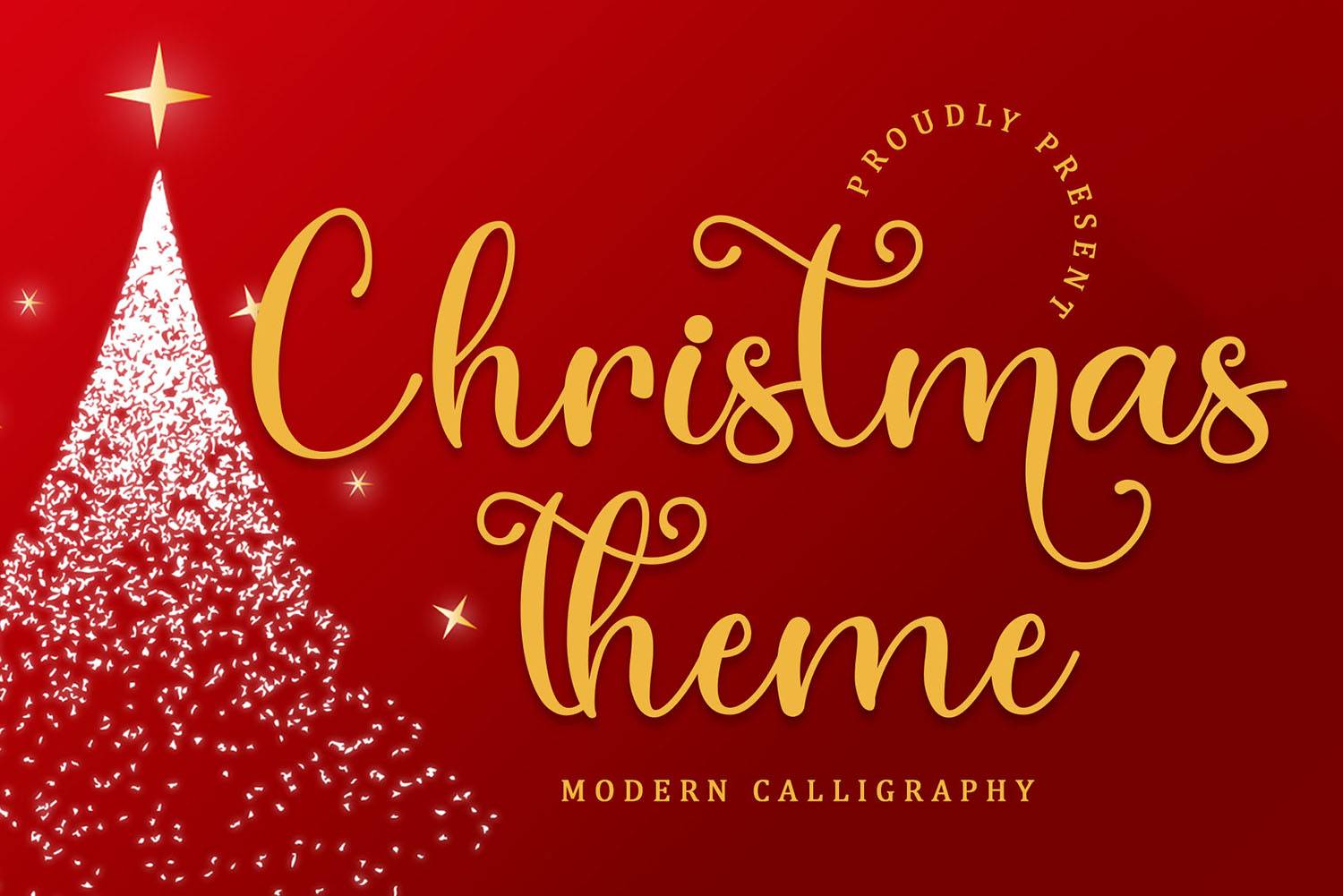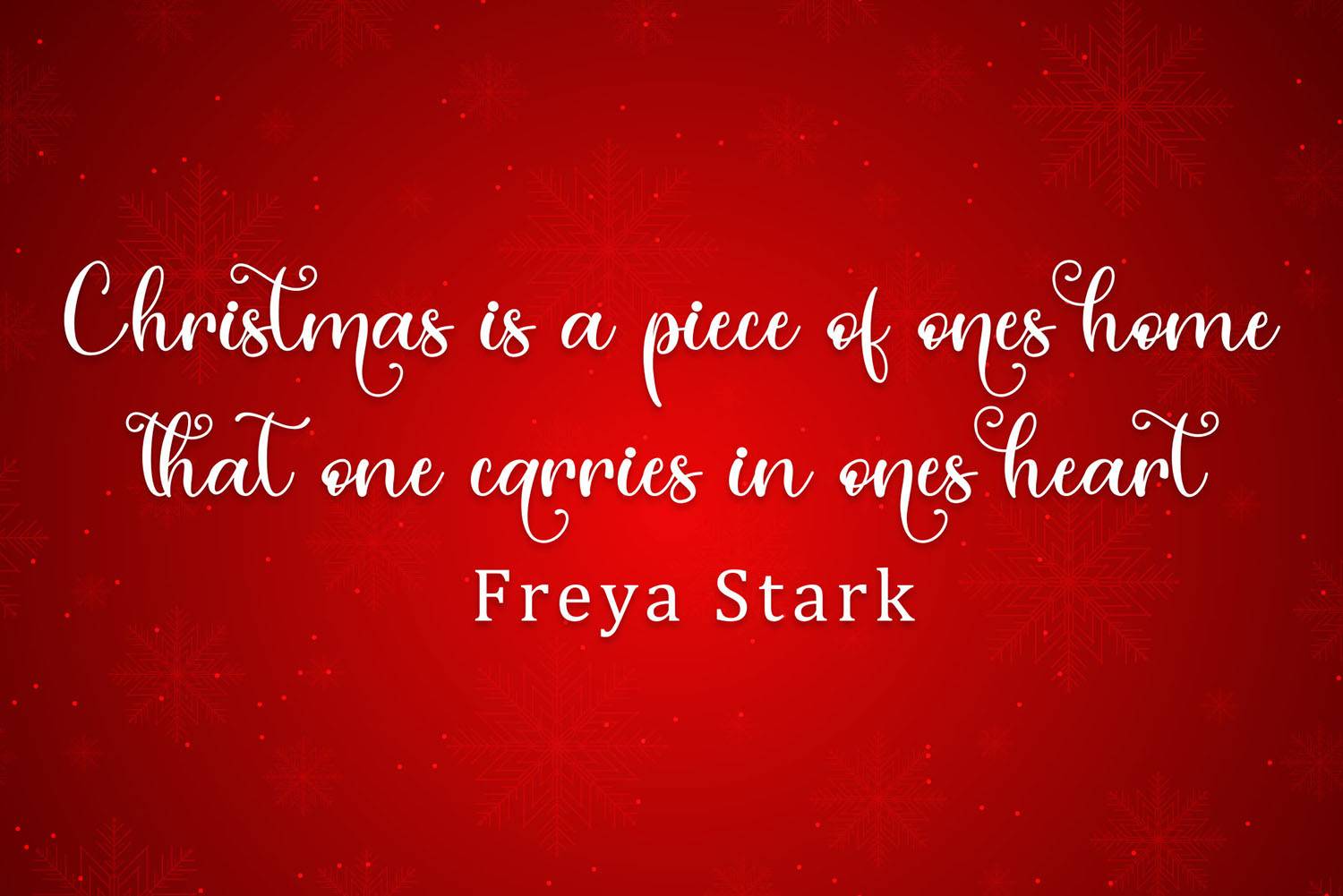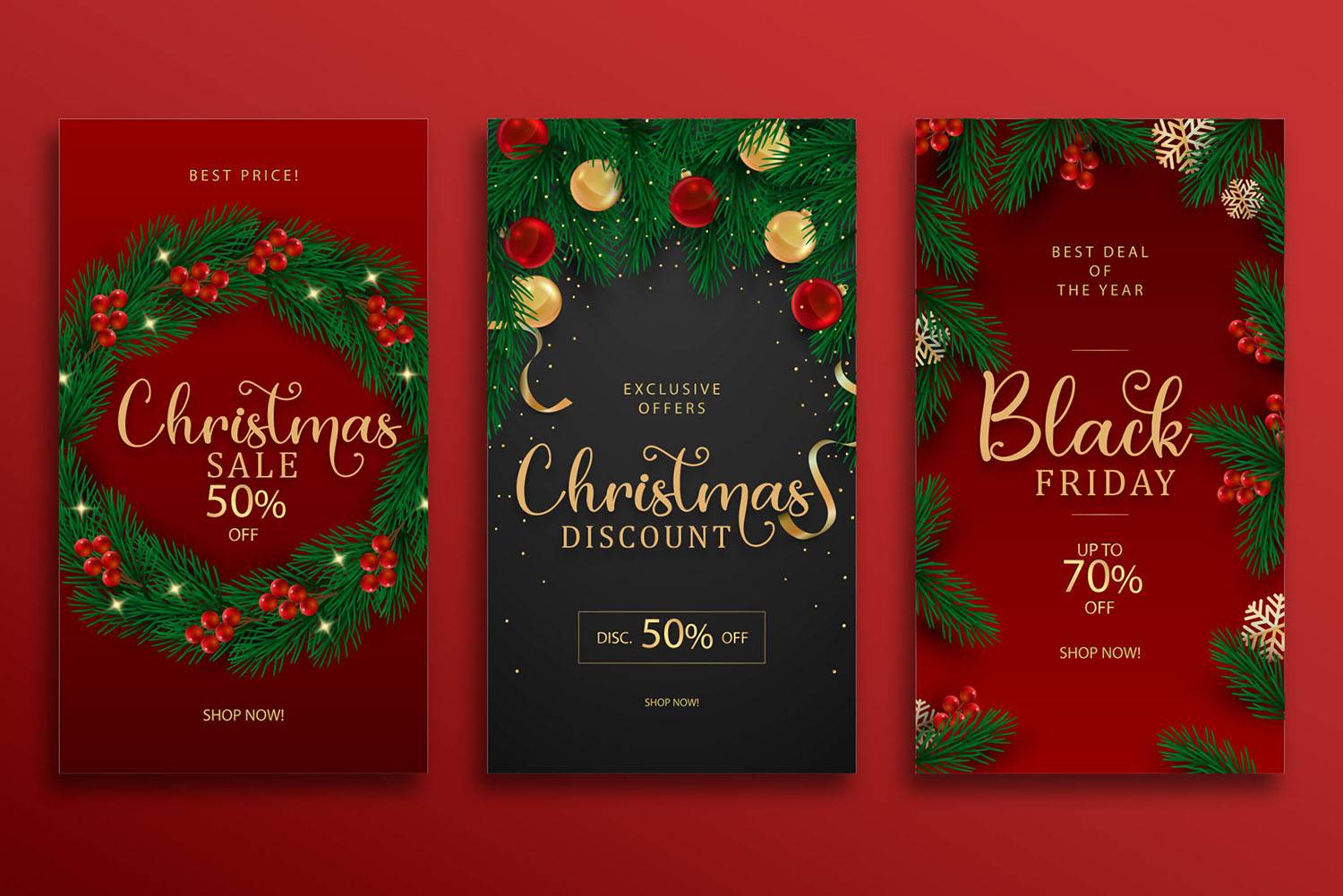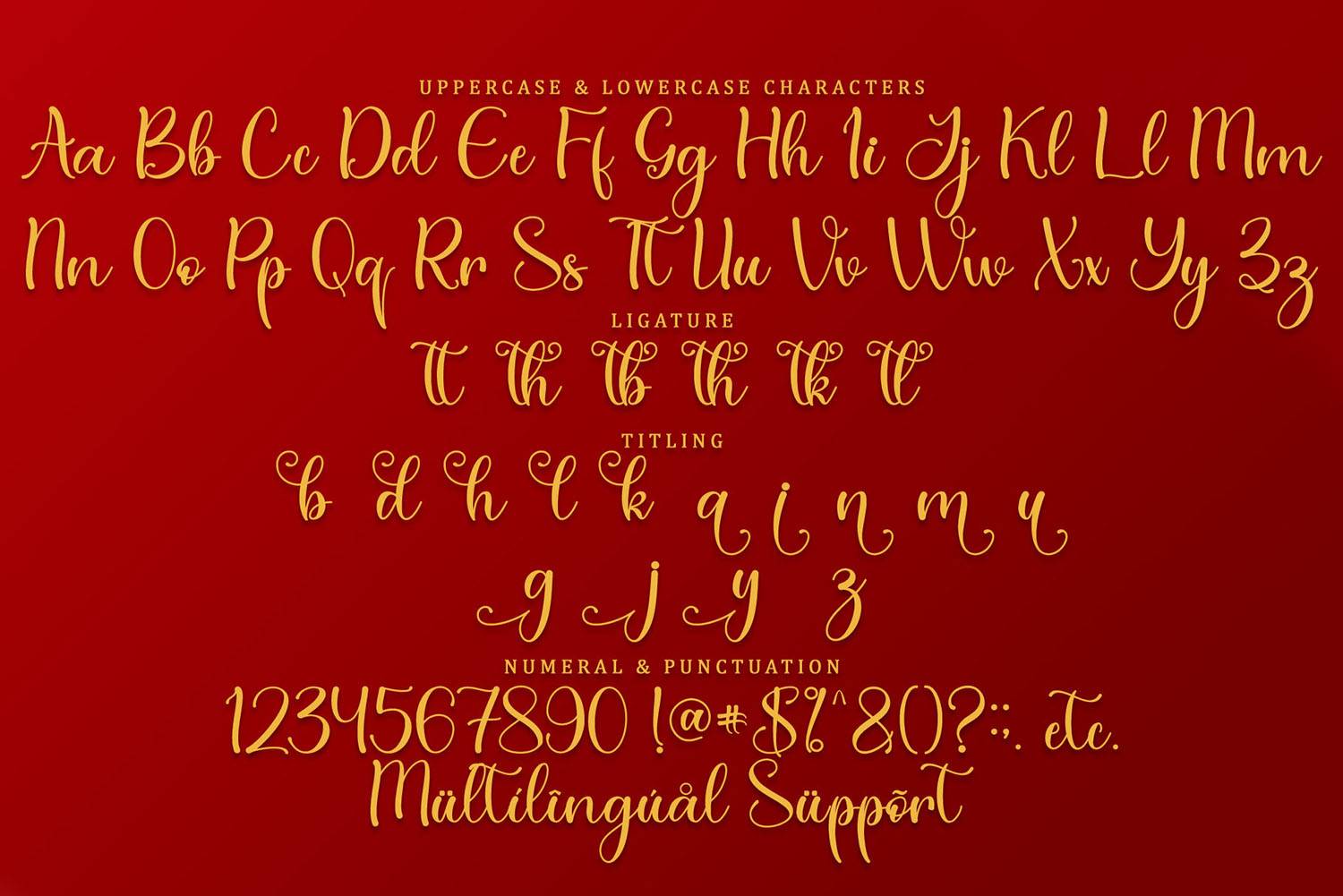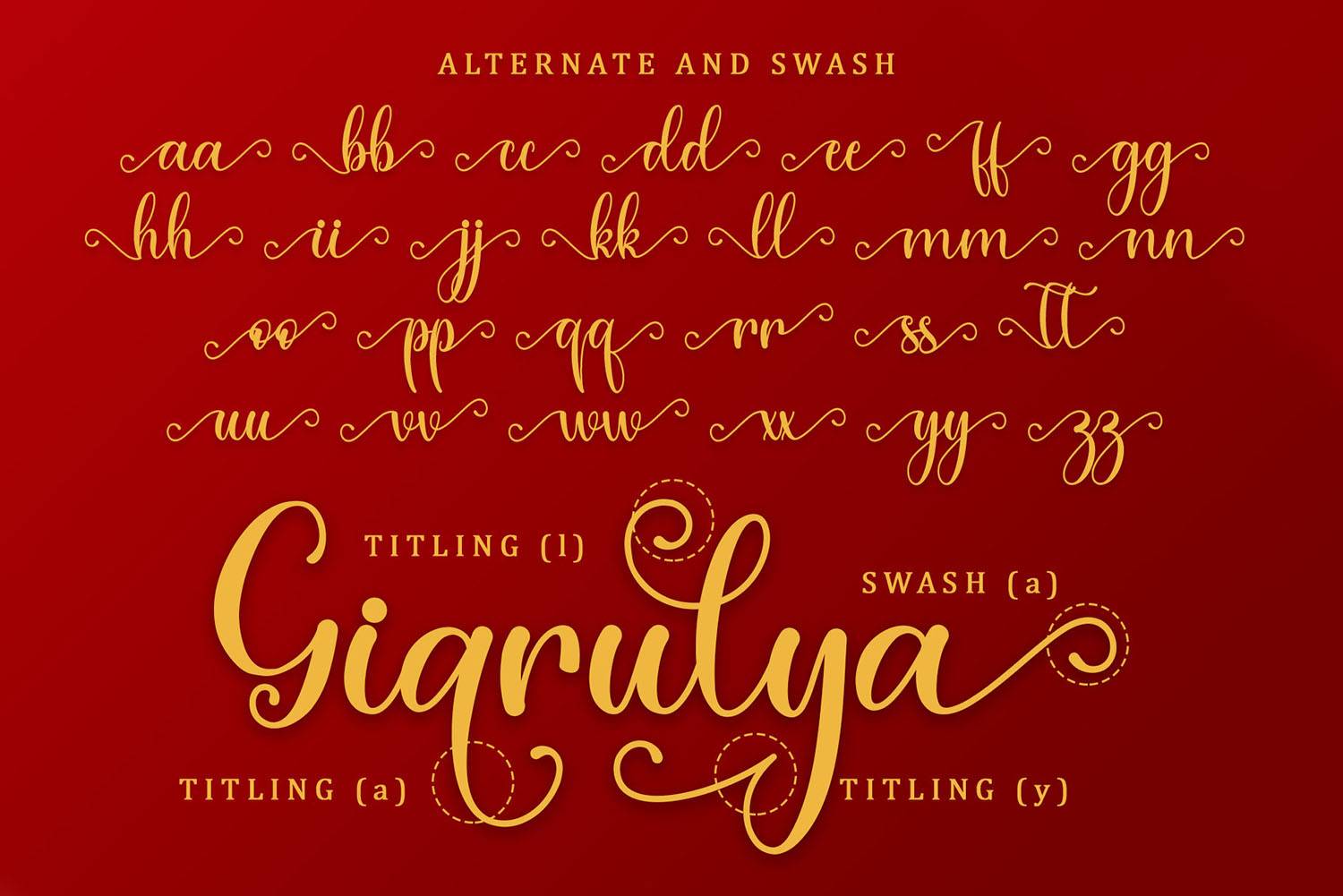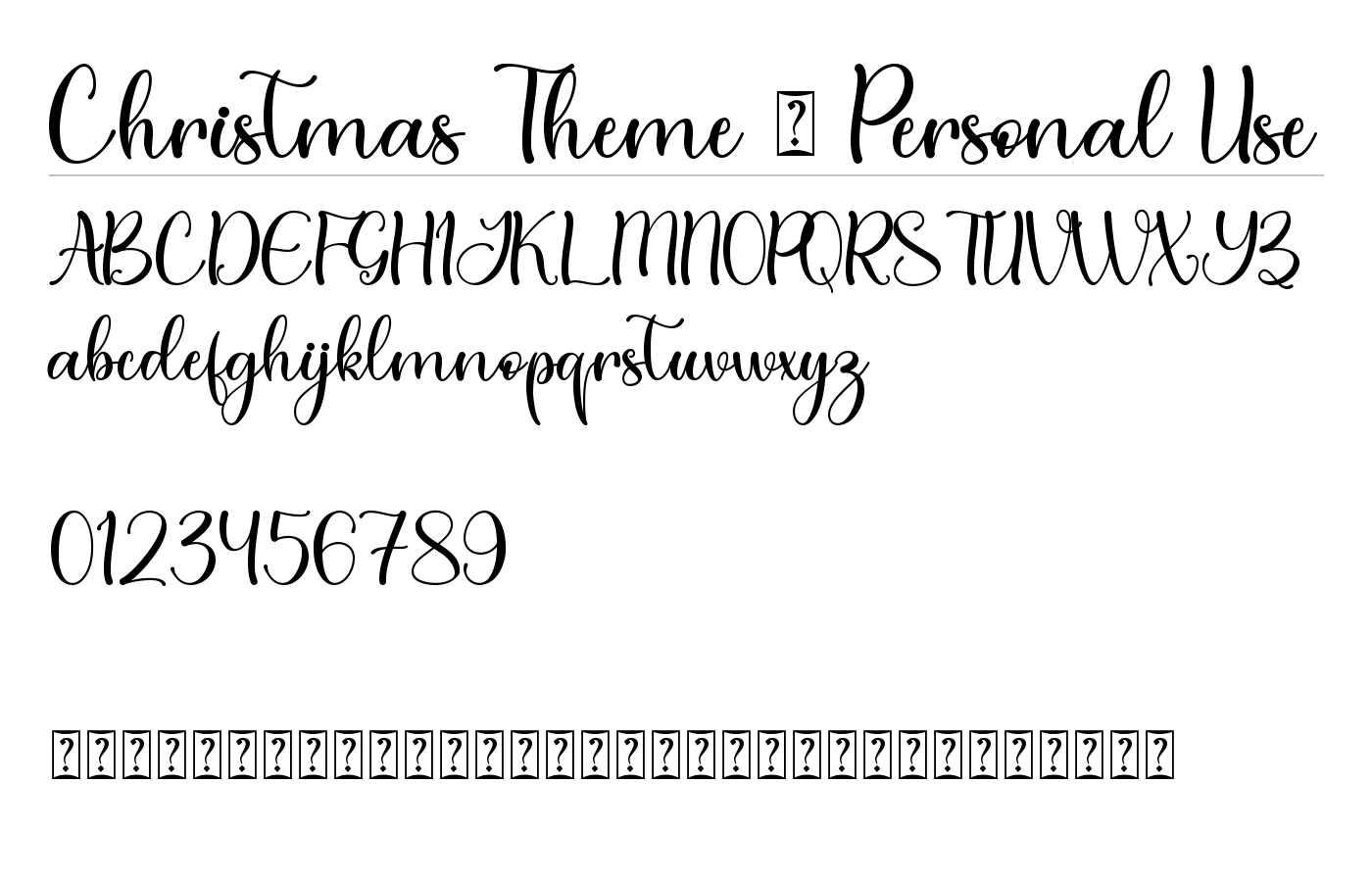
Christmas Theme Font is a playful and elegant script font with smooth, flowing strokes and charming swashes that evoke a festive and warm feeling. Its light weight and high x-height combined with whimsical loops make it perfect for holiday greetings, invitations, and seasonal branding that aims to convey a joyful and personal touch. This font works best in decorative headlines and creative projects where a cheerful, handcrafted look is desired.
Christmas Theme Font
About Christmas Theme Font